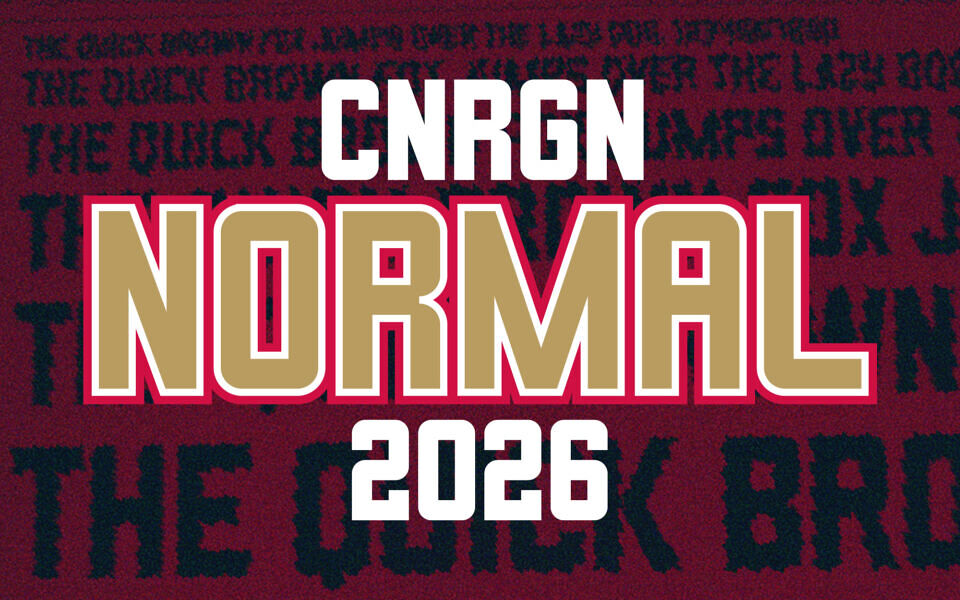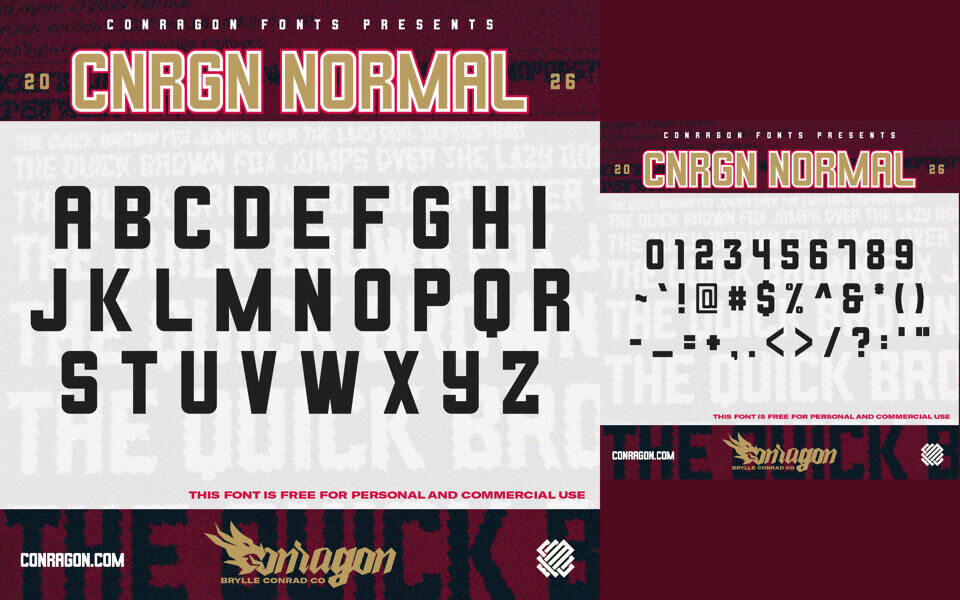
CNRGN Normal is a modern display typeface featuring clean, geometric letterforms with a slightly bold, structured look. Its minimalist yet distinctive style makes it ideal for logos, posters, headlines, and branding projects that need clarity and impact.
Designed for readability, it supports standard Latin characters and delivers a balanced mix of simplicity and personality, making it a versatile choice for contemporary visual designs.